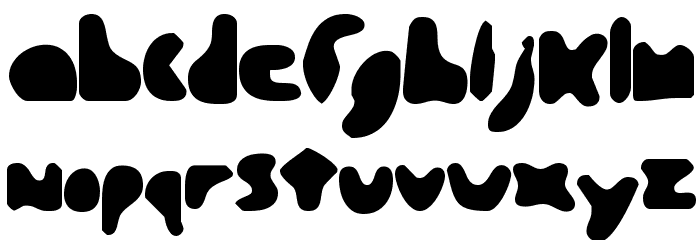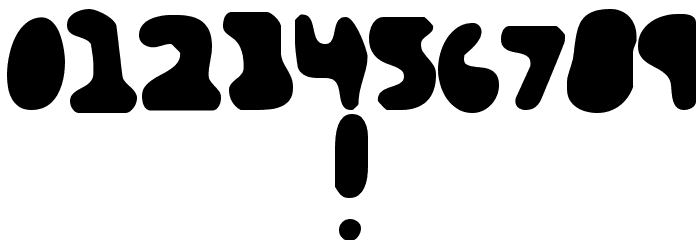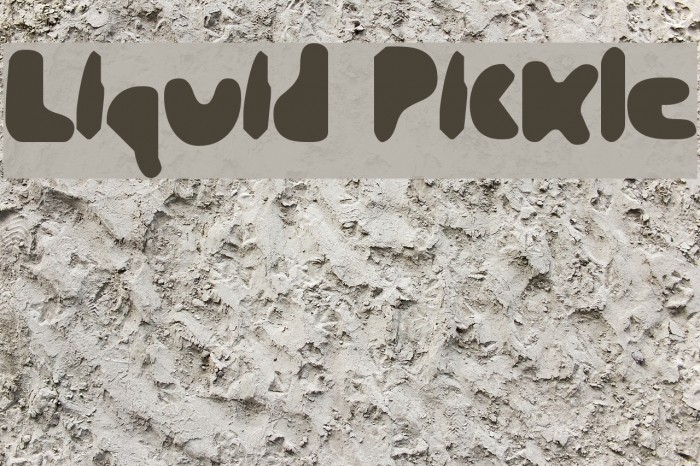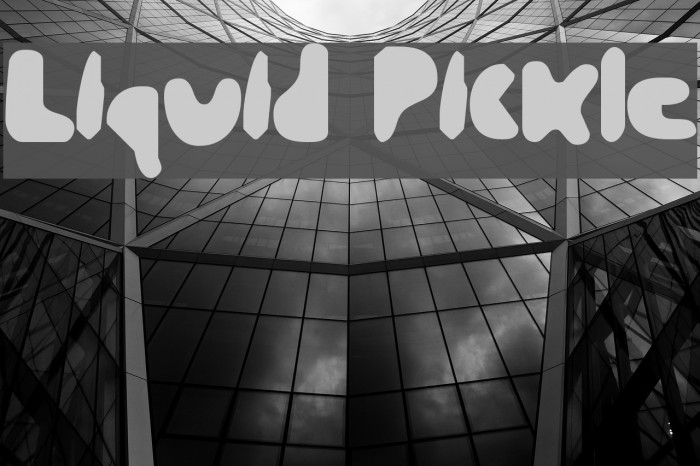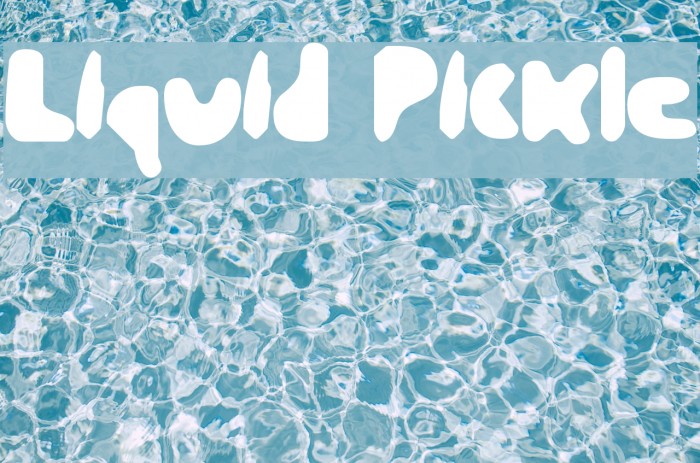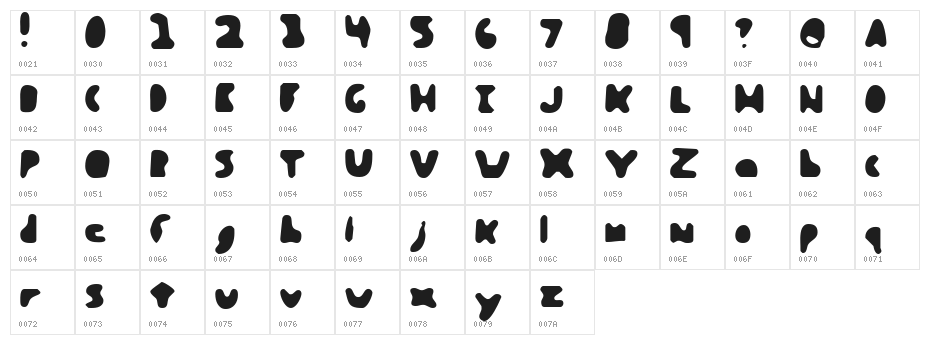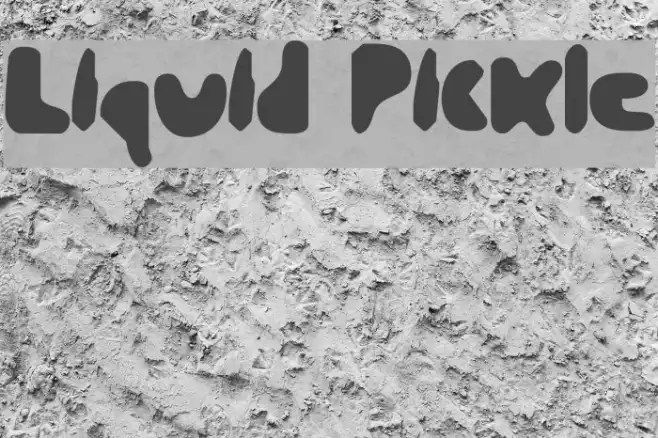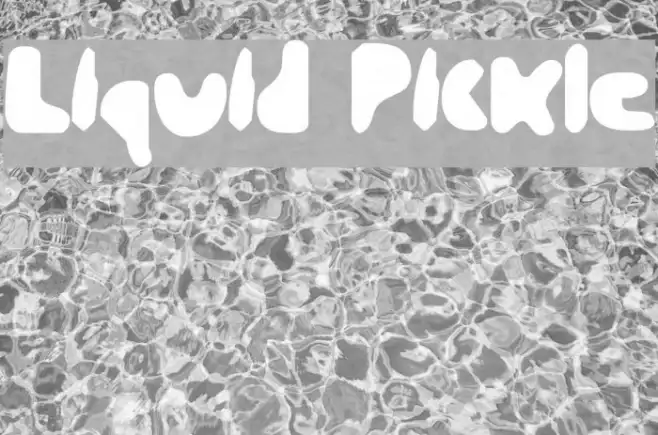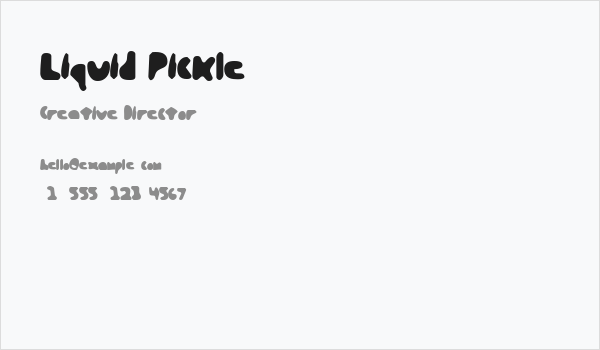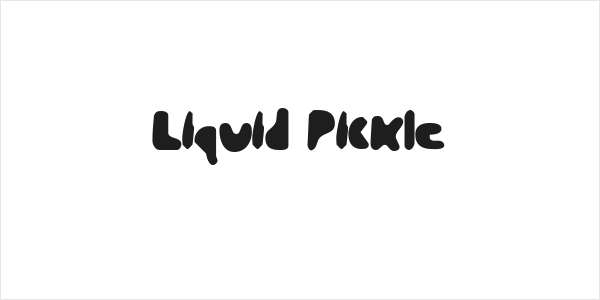
Liquid Pickle Font
This font features a playful and bold design with a liquid-like appearance. The characters are rounded and have a unique, organic flow that resembles blobs or droplets. The uppercase and lowercase letters maintain a consistent style, with thick, smooth strokes and a whimsical feel. The numbers and special characters follow the same design principles, ensuring a cohesive look across all elements. This font's distinct style makes it stand out, offering a fun and creative option for various design projects.
A playful, bold font with a liquid-like, organic appearance.
- Proposed Projects: Ideal for children's books, playful branding, creative posters, and event invitations.
- Overall Style: Playful, Creative